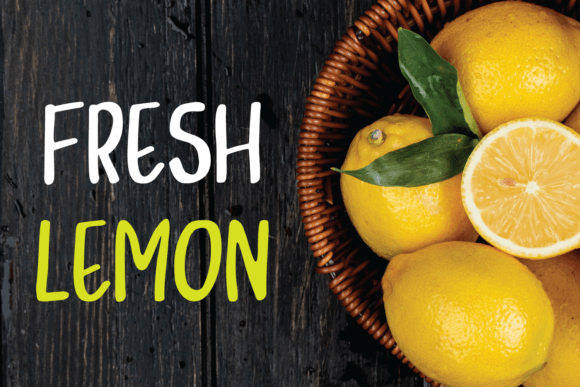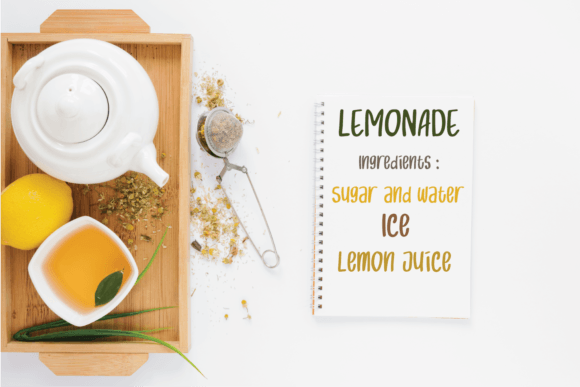
Introduction to Papylon Font
Have you ever found yourself staring at a blank canvas, unsure of where to begin your next creative project? The blank page can be daunting, but what if you had the perfect tool to spark your imagination? Enter the Papylon Font, a playful, modern, and charming handwritten display font that’s sure to elevate your design game.
Whether you’re a seasoned designer or just starting out, the Papylon Font is an invaluable resource that can add a touch of whimsy and personality to any project. With its high-quality design and versatility, this font is perfect for creating eye-catching graphics, social media posts, or even a simple logo. And the best part? It’s available for free download, making it an accessible design resource for creatives of all levels.
As a valuable addition to your design library, the Papylon Font offers endless possibilities for creativity and self-expression. With a transparent background, you can easily overlay it on any image or design, giving you complete control over the final product. Whether you’re working on a personal or professional project, the Papylon Font is sure to be a valuable asset in your creative toolkit.
Papylon Font
- High-quality, professional font ideal for creative projects and design resources.
- Features a transparent background, allowing for easy layering and customization in design projects.
- Unique characteristic: Its unique, modern design makes it perfect for adding a touch of sophistication to any creative project.
Honest Review: Papylon Font
As a designer, I’m always on the lookout for high-quality design resources to elevate my creative projects. Recently, I stumbled upon the Papylon Font, and I’m excited to share my honest review.
- ✨ The Papylon Font has a unique, modern aesthetic that’s perfect for trendy designs.
- ✨ The font is highly customizable, allowing for seamless integration into various design applications.
- ✨ The transparent background option provides endless possibilities for creative experimentation.
- ⚠️ The font may not be suitable for formal or traditional designs, as its modern style can be overwhelming in certain contexts.
- ⚠️ Some users may find the font’s uniqueness to be a double-edged sword, as it can also be seen as gimmicky or overused.
Overall, I’m impressed with the Papylon Font’s high quality and versatility. While it may not be the best fit for every design project, it’s an excellent addition to any designer’s toolkit. If you’re looking for a modern, creative font to spice up your designs, the Papylon Font is definitely worth checking out.
Tips for Getting the Most Out of Papylon Font
For a high-quality design, use Papylon Font on a transparent background to create a unique and eye-catching effect. You can also use Papylon Font in combination with other design resources to create a cohesive and creative project.
Papylon Font is a versatile font that can be used in a variety of creative projects, including logos, brochures, and social media graphics. Its high-quality design and transparent background make it perfect for use in modern and sleek designs.
Q: Can I use the Papylon Font for a project with a transparent background?
Yes, the Papylon Font is designed to be highly legible and works well with transparent backgrounds. You can use it for creative projects that require a clear and crisp font, such as graphics, logos, or web design.